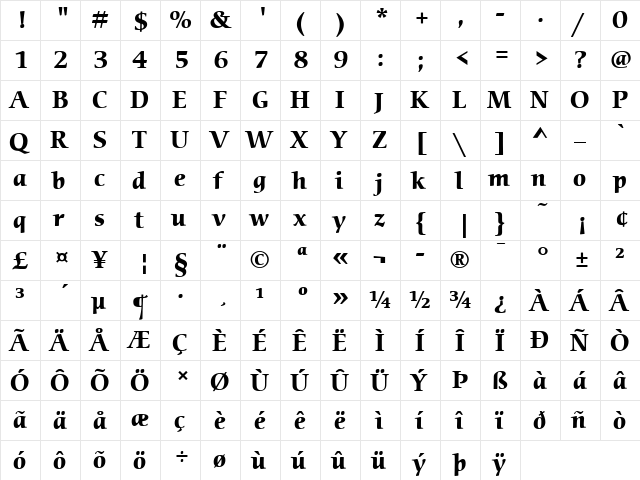
ITCCerigo LT Book Bold
Design Context for ITCCerigo LT Book Typeface
ITCCerigo LT Book is a composed and adaptable typeface that performs quietly and consistently across a wide range of design contexts. The heavy weight commands attention and anchors typographic hierarchies.